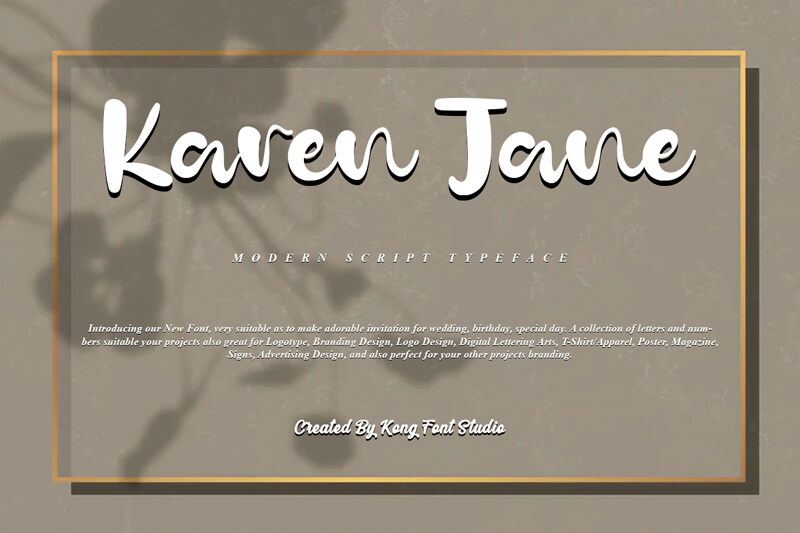
Karen Jane
Karen Jane, a bold and beautiful font designed by Kong Font, is the perfect choice for projects that require a touch of elegance and sophistication. With its smooth brush style and semi-expanded width, Karen Jane is versatile enough to be used in a variety of design projects such as wedding invitations, logos or branding materials. This font's bold weight makes it ideal for headlines or titles that need to stand out. The exquisite curves and flowing strokes of Karen Jane will add an extra dimension of creativity to any project you work on. Try it out today!